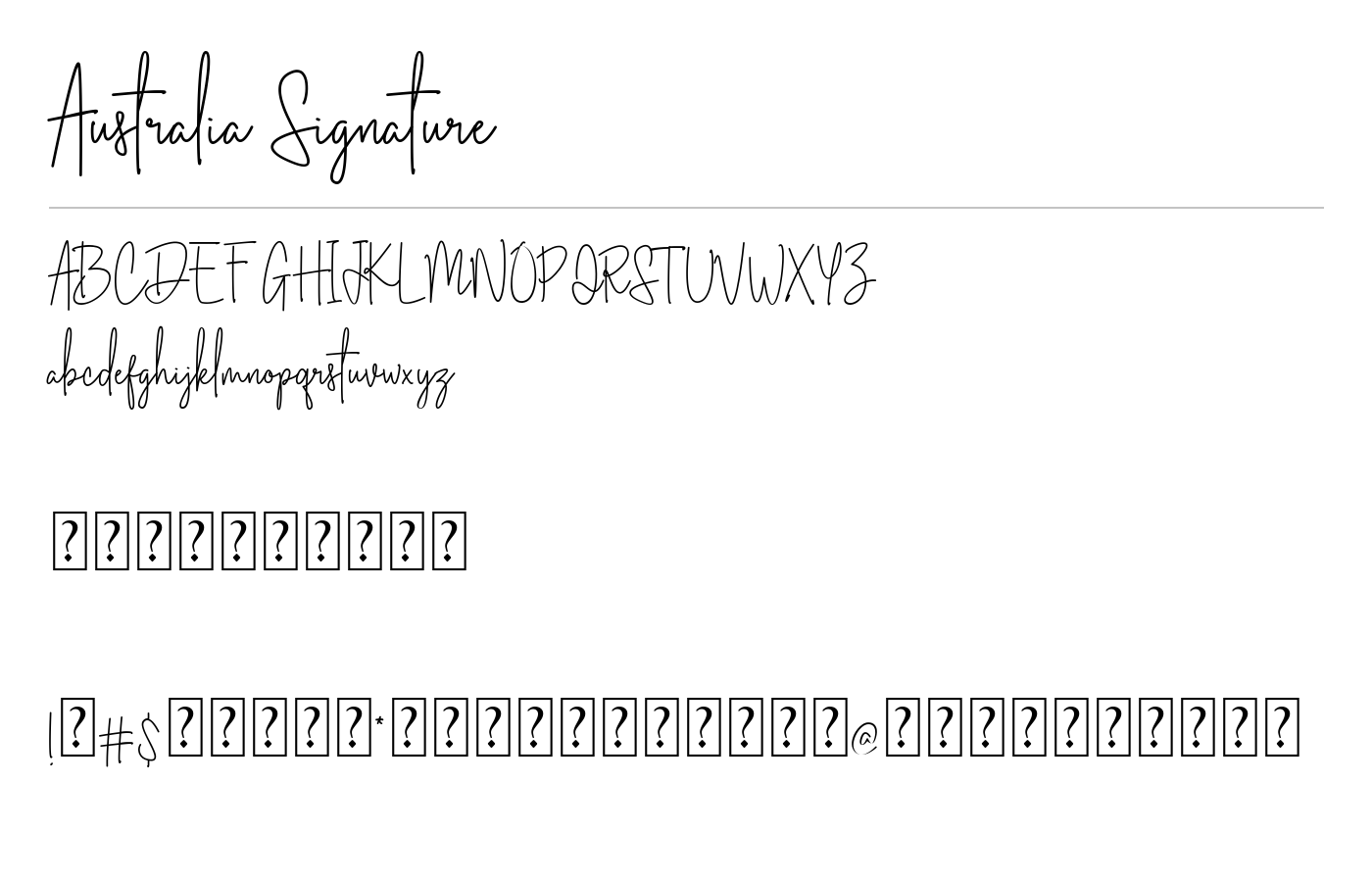
Australia Signature Font is a delicate, handwritten script with tall, slender letterforms that mimic elegant natural handwriting. Its light weight and narrow width create a refined and personal touch, making it perfect for branding, invitations, and stylish headlines where a sophisticated, approachable feel is desired. This font works beautifully for projects that need a modern yet intimate signature style.
Australia Signature Font
About Australia Signature Font
| Font family | Australia Signature Font |
| Designer | Alvaro Ariel. 2019. |